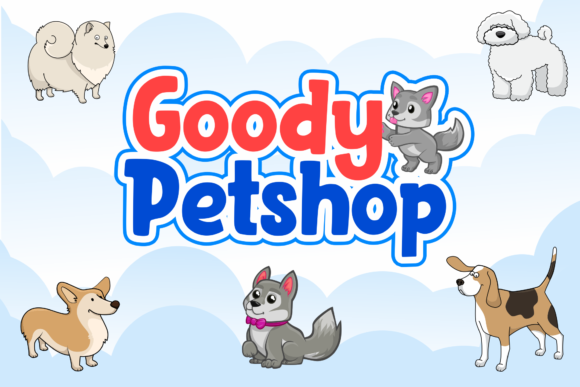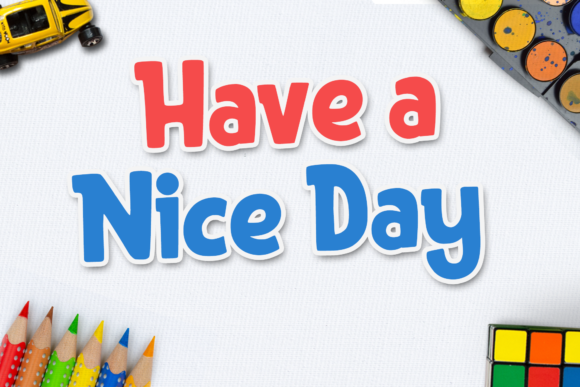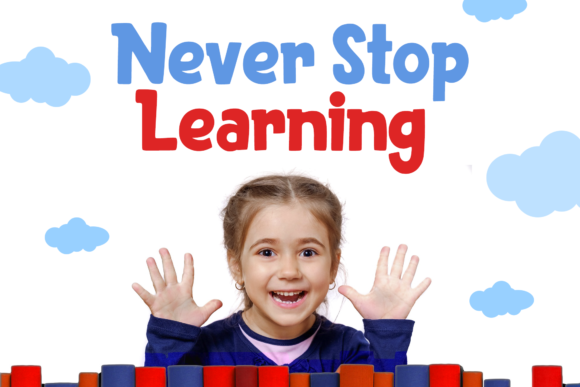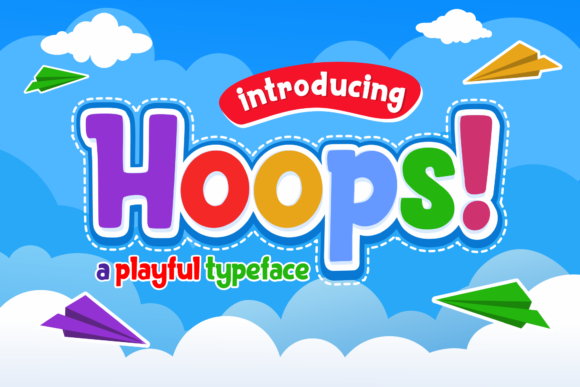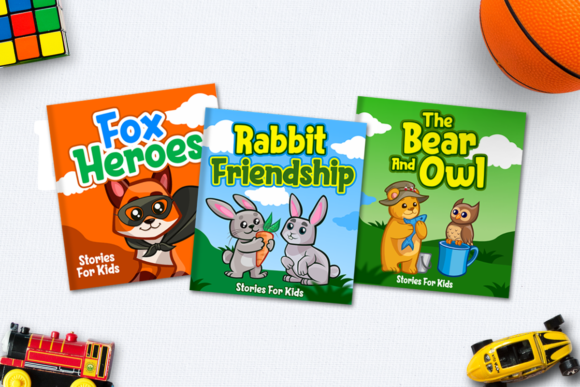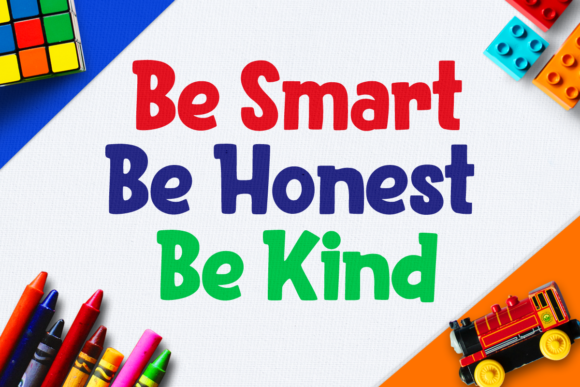
Hoops!
Looking for a font that exudes playfulness and whimsy? Look no further than our delightful display font, perfect for injecting a sense of joy and levity into your designs.
This charming font is ideal for kid-friendly projects, such as children's books, educational materials, or even party invitations. Its cartoonish vibe makes it a great fit for any design that needs to convey a sense of fun and energy.
The font's unique, rounded shapes and exaggerated features evoke the feeling of a child's imagination running wild, making it perfect for illustrations, animations, or any project that requires a touch of playfulness. Whether you're designing for kids or just want to add some youthful zest to your design, this font is sure to hit the spot.
With its bold lines, cheerful curves, and delightful details, Hoops! is a font that will bring a smile to anyone's face. So why settle for boring, ordinary text when you can add a dash of whimsy and wonder to your designs? Give Hoops! a try today and watch your projects come alive with fun and excitement!